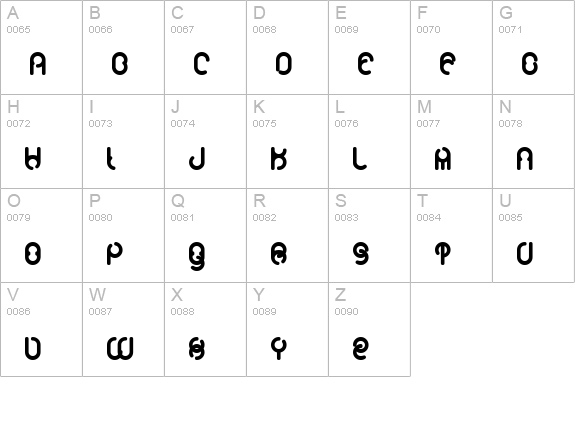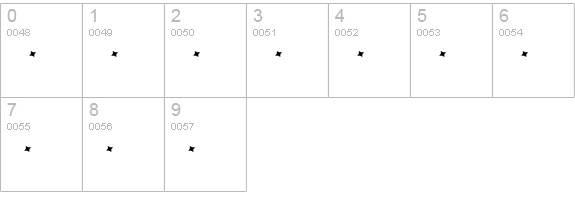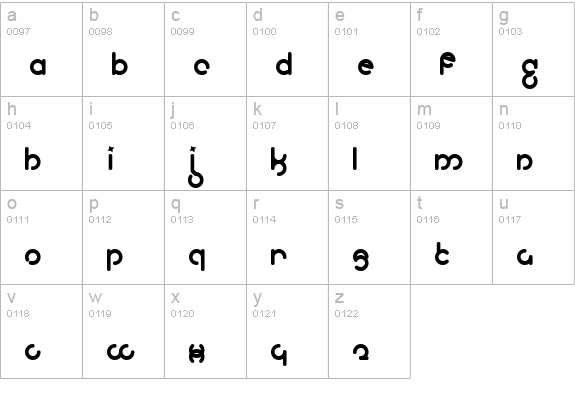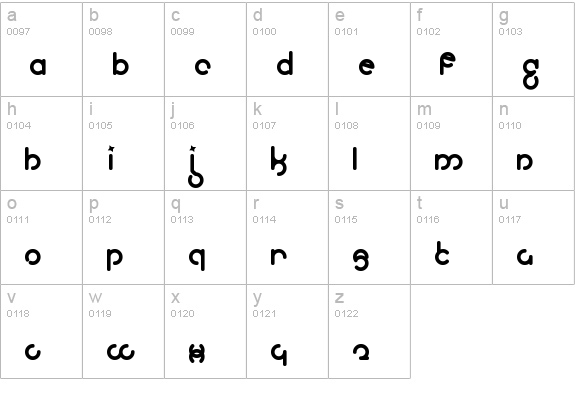
Moloky Font Details
Moloky font is a beautifully crafted typeface that exudes elegance and sophistication. Its sleek lines and modern design make it perfect for a wide range of design projects, from branding to editorial design. The font features a unique blend of sharp angles and soft curves, creating a harmonious balance that is both eye-catching and easy to read. What sets Moloky font apart is not only its stunning aesthetics but also its versatility. Whether you're designing a logo, poster, or website, this font will add a touch of class and style to your work. With its wide range of weights and styles, you can easily customize Moloky to suit your specific needs. Best of all, Moloky font is available for free download at FontsMarket.com. So why wait? Add this exquisite font to your collection today and elevate your designs to new heights.